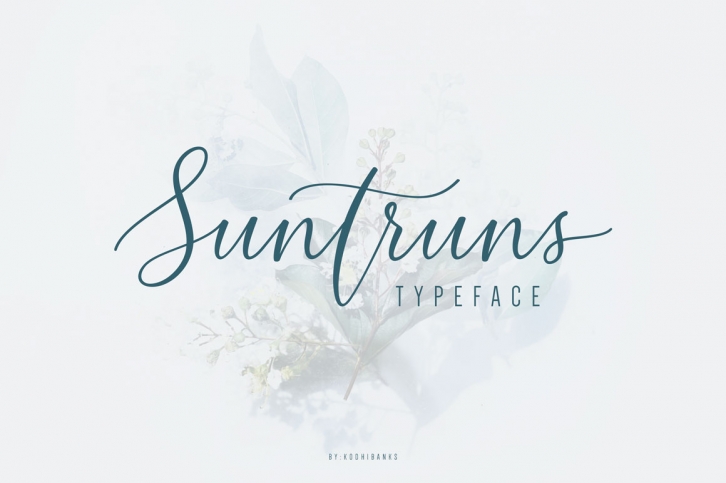
Suntruns Typeface is a great font that was designed by banks. Imagine the amount of combinations you can create using this font! The archive is 10.97 MB and it was released on February 28, 2019. Suntruns Typeface looks beautiful on wedding invitations, greeting cards, logos, posters, labels, t-shirt designs, logos, business cards and is perfect for use in ink or watercolor works, fashion, magazines, packaging and food menus, children's books and more!